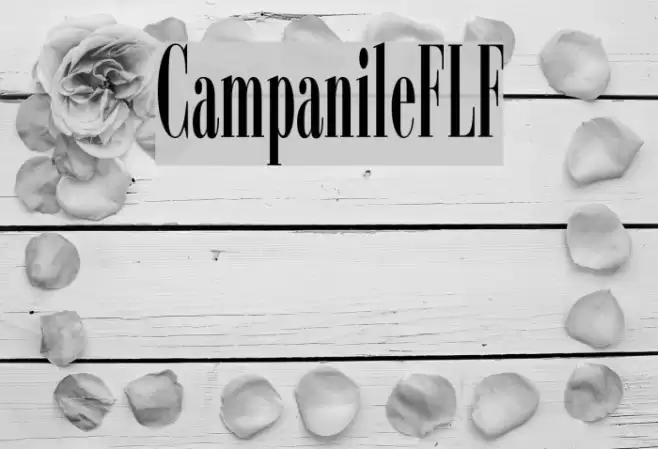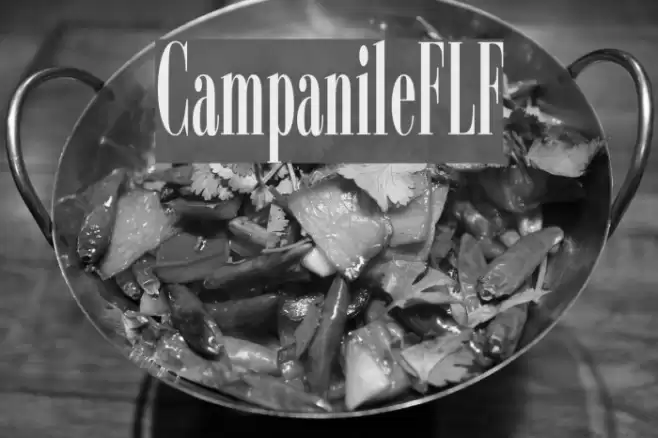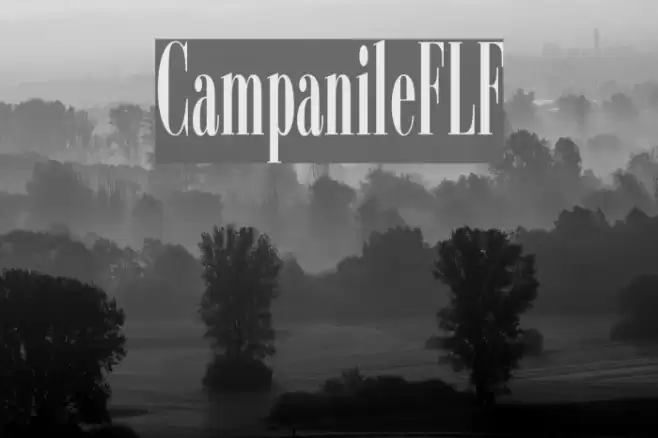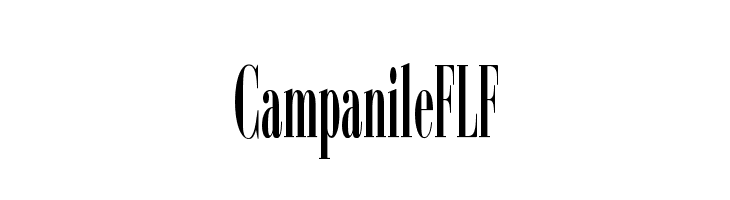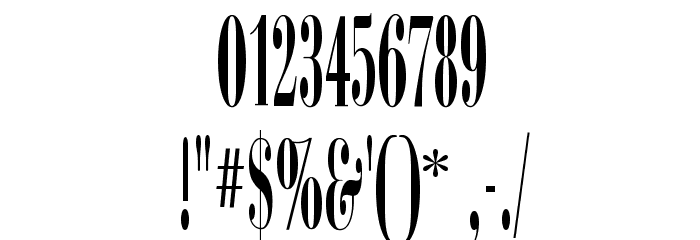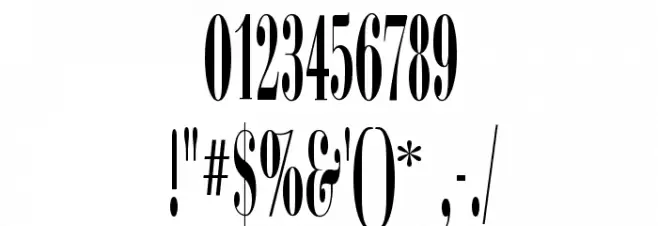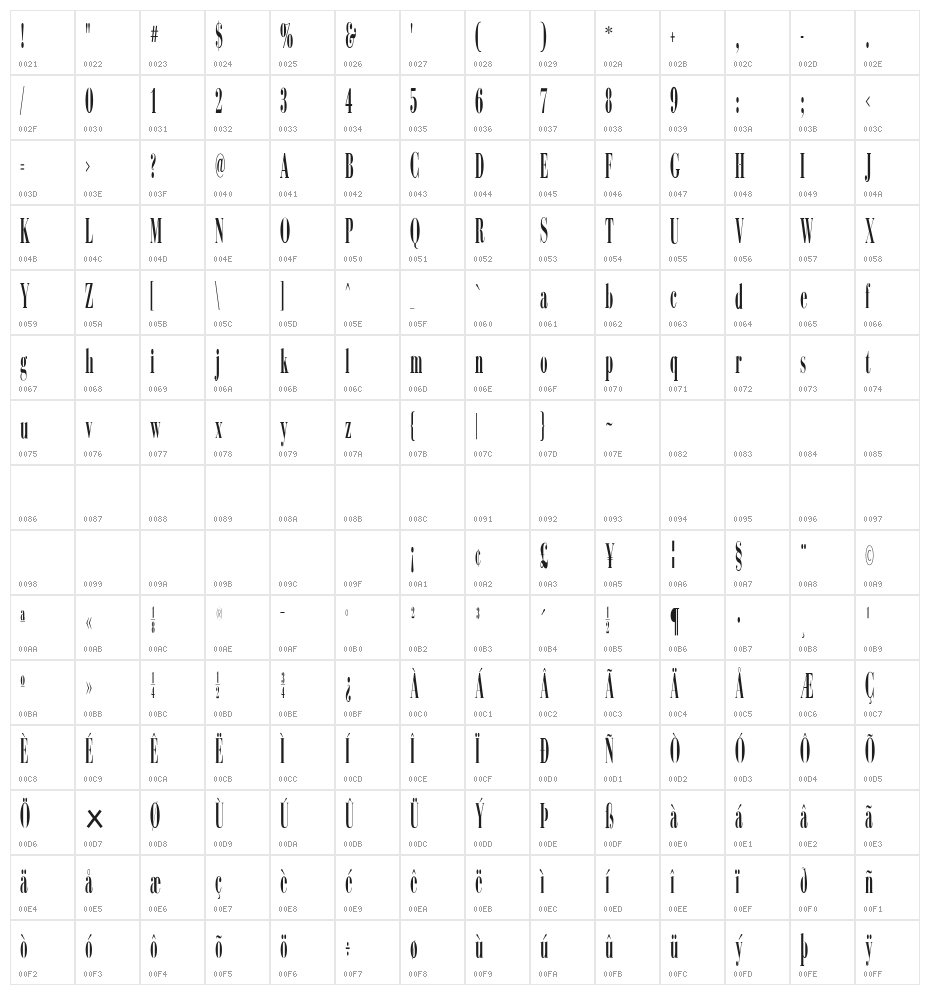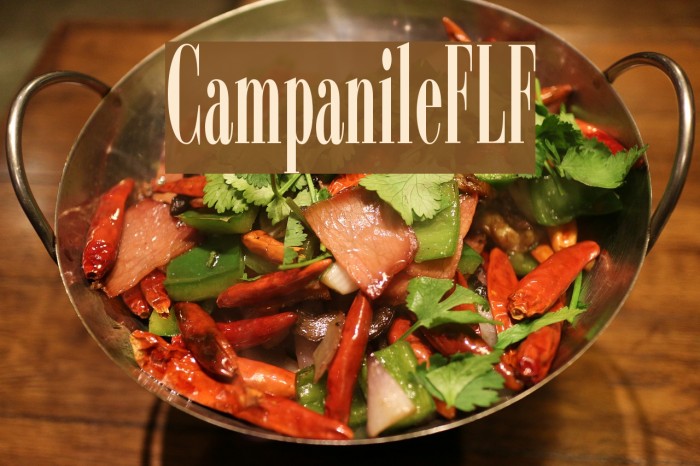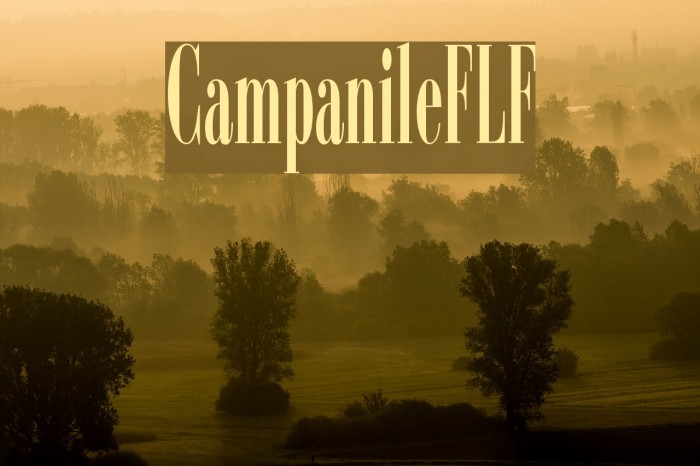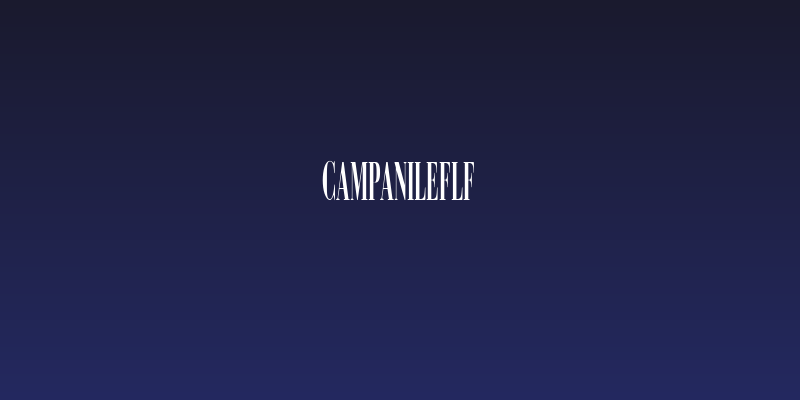
CampanileFLF Font
CampanileFLF Description
This font features a bold and elegant design with high contrast between thick and thin strokes, giving it a dramatic and sophisticated appearance. The uppercase letters are tall and narrow, while the lowercase letters maintain a consistent style that complements the uppercase. The numerals are distinct and easy to read, with a classic touch that enhances the overall aesthetic. Special characters are included, maintaining the same bold and elegant style, making this font versatile for various uses. The design is reminiscent of vintage typography, yet it retains a modern flair, making it suitable for both contemporary and classic projects.
A bold, elegant font with high contrast and a vintage-modern style from Uncategorized fonts.
- Proposed Projects: Ideal for headlines, posters, branding, and editorial design where a dramatic and sophisticated look is desired.
- Character Spacing: Tight
- Overall Style: Vintage, Modern